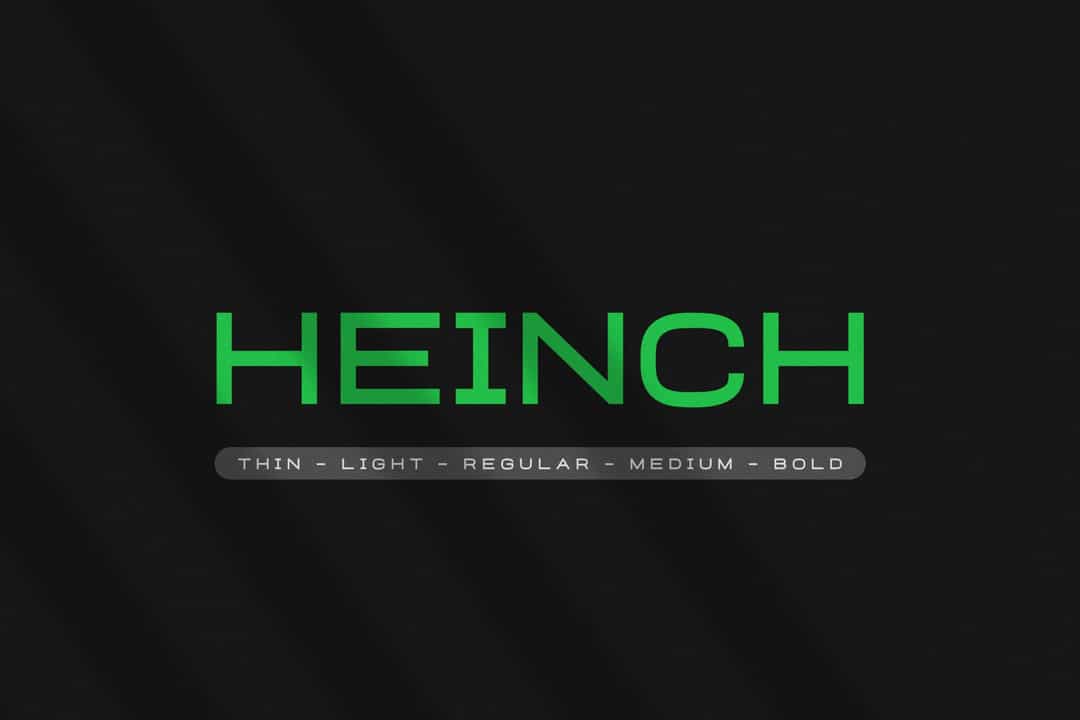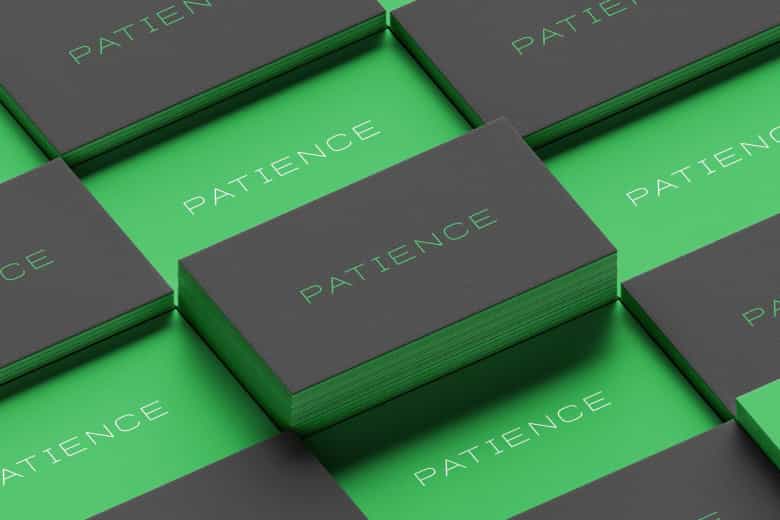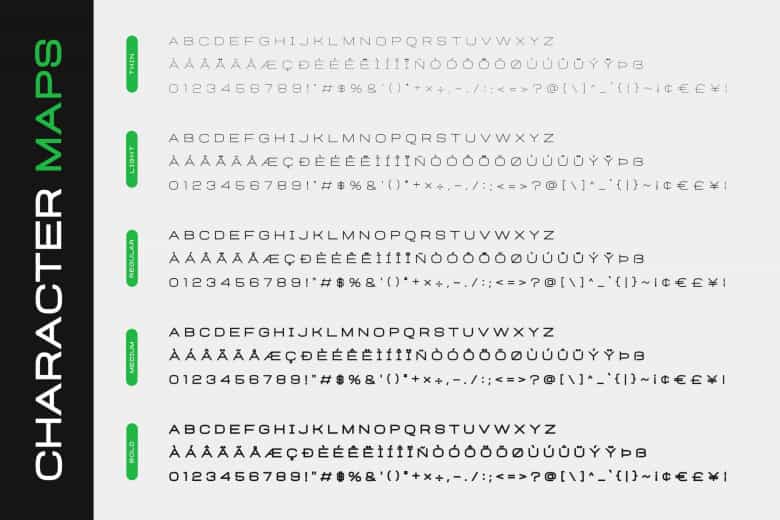
Heinch Medium Sans Serif Font – Expanded Sans Family was inspired by iconic logos from technology companies and brands with powerful characteristics. Featuring five fonts for you to complete an exceptional job that produces satisfactory results; perfect for posters, T-shirt packaging branding, logotypes and much more.